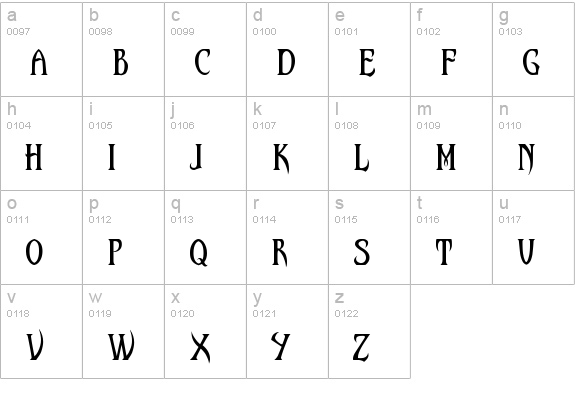
Malefic Font Font Details
Introducing the captivating and enigmatic Malefic Font font, a remarkable typeface that exudes a touch of darkness and mystique. Perfectly blending elegance and edginess, this font is sure to capture the attention of any audience. Malefic Font is designed with meticulous precision to create a truly unique and captivating visual experience. Its intricate details and sharp contours give it a modern and sophisticated look, making it ideal for a variety of design projects. Whether you're working on branding, advertising, packaging, or any other creative endeavor, Malefic Font will add a touch of allure and intrigue to your work. Its versatility allows it to seamlessly adapt to various design styles and themes, making it a go-to choice for designers seeking to make a bold statement. But what truly sets Malefic Font apart is its accessibility. We believe that every designer deserves access to high-quality resources without breaking the bank, which is why we are thrilled to offer this incredible font for free. That's right, Malefic Font is freely available to download at FontsMarket.com, ensuring that designers of all levels can unleash their creativity without any financial constraints. So, why wait? Discover the captivating allure of Malefic Font and elevate your designs to new heights. Download it today and let your imagination run wild.